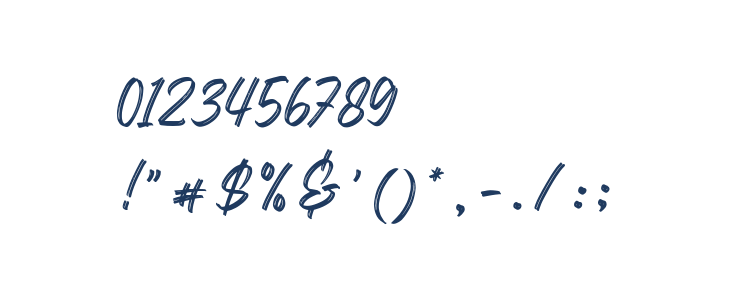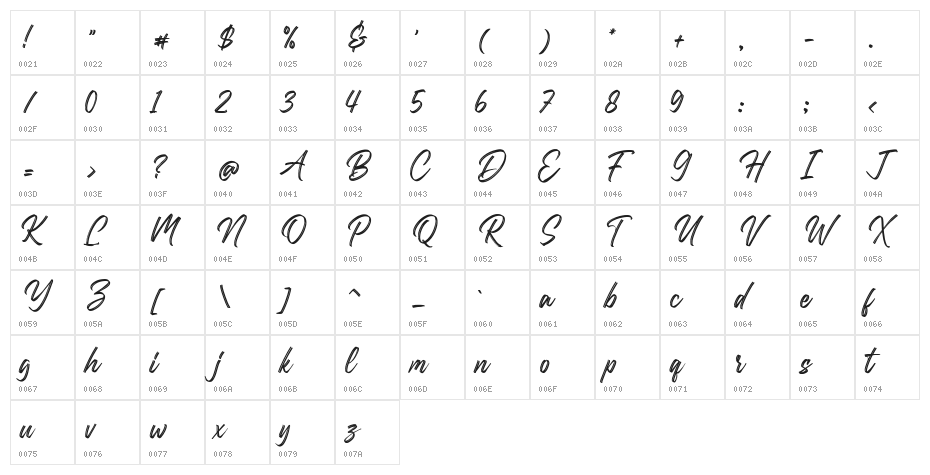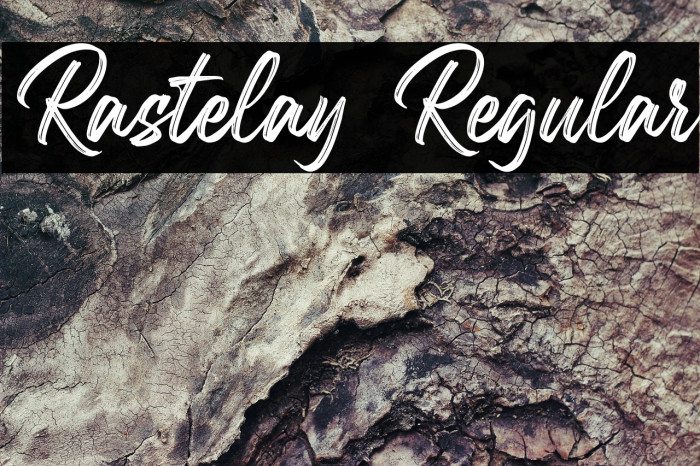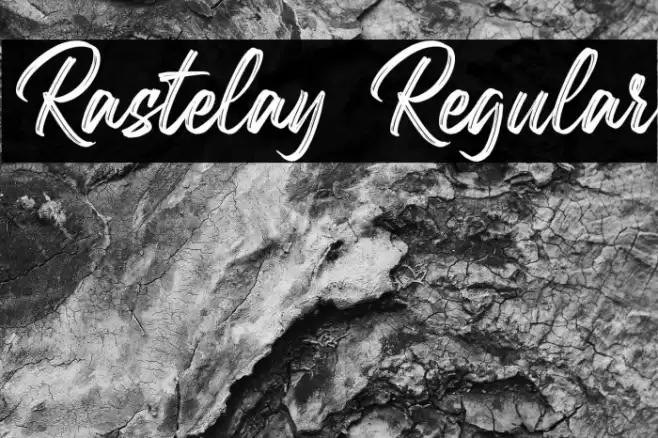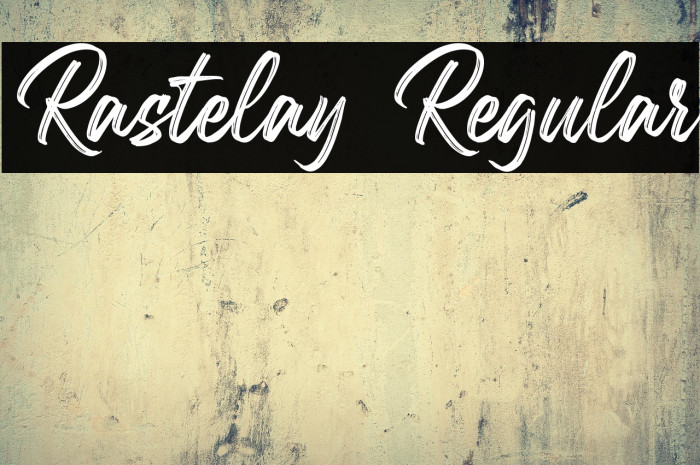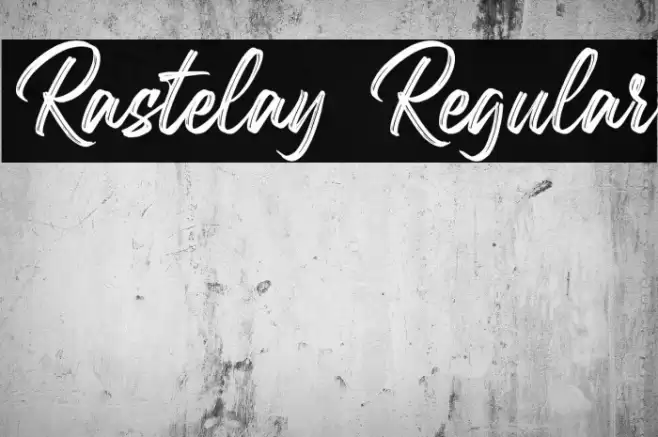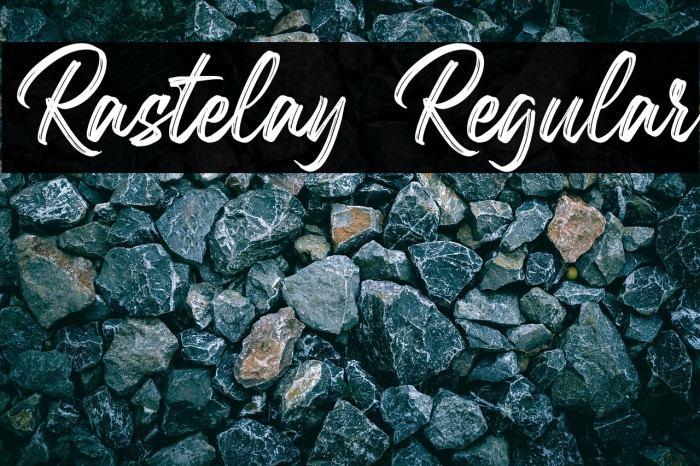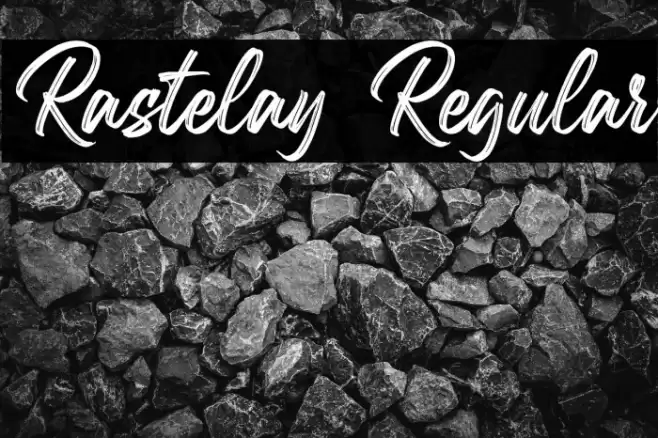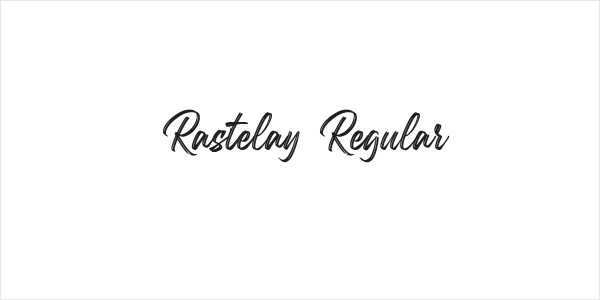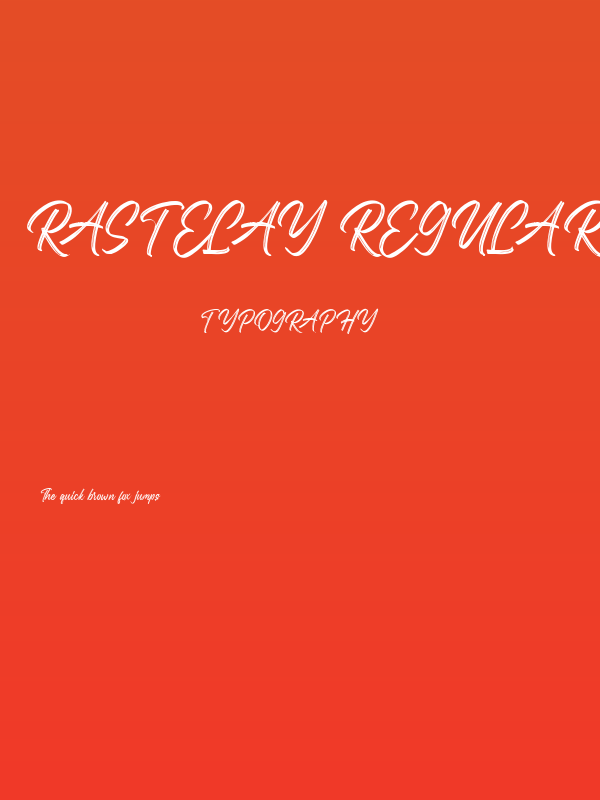
Rastelay Regular Font
Rastelay Regular Description
This font features a dynamic and flowing script style, characterized by its elegant and fluid letterforms. The strokes are smooth and connected, giving it a handwritten appearance that is both sophisticated and approachable. The uppercase letters are bold and prominent, while the lowercase letters maintain a consistent flow, enhancing readability. The numerals and special characters are designed to match the overall aesthetic, ensuring a cohesive look across all text. This font's style is ideal for projects that require a personal touch, such as invitations, greeting cards, or branding materials.
| Use Case | Logos, Invitations, Greeting cards |
| Proposed Projects | Ideal for wedding invitations, greeting cards, personal branding, and elegant signage. |